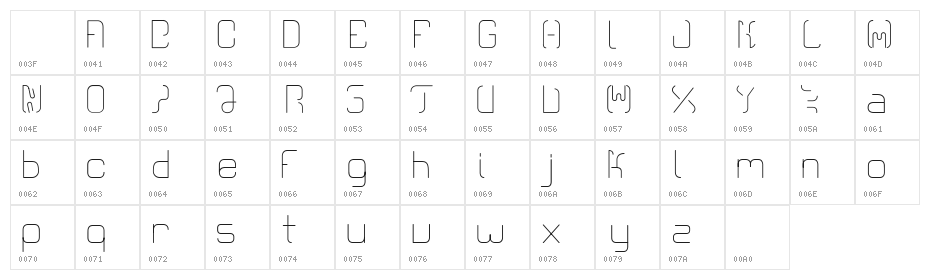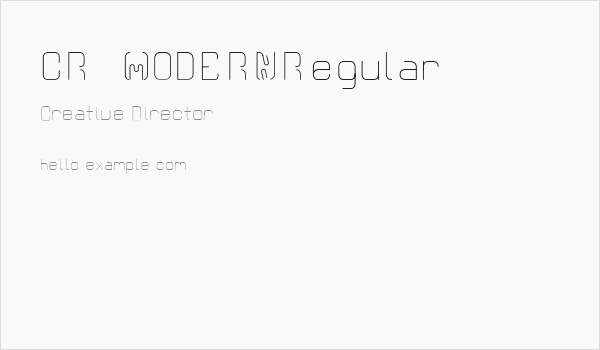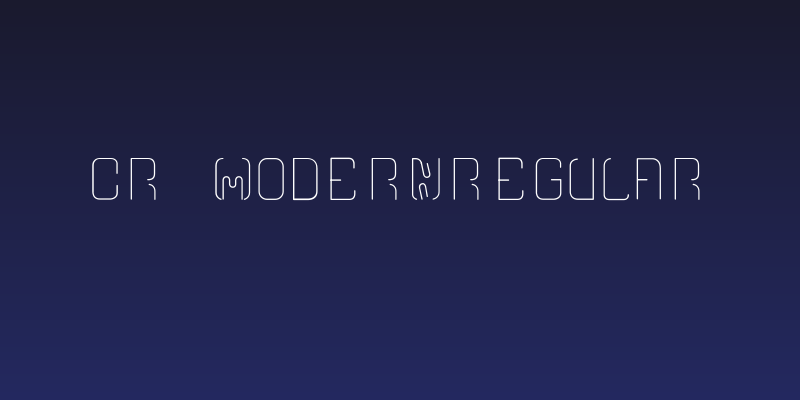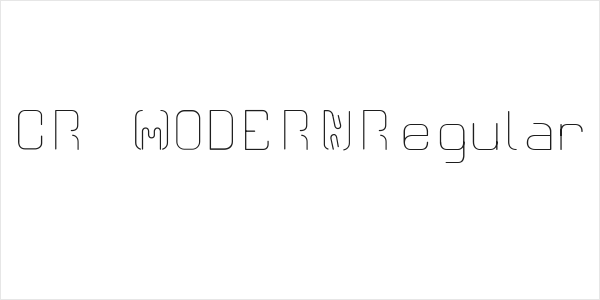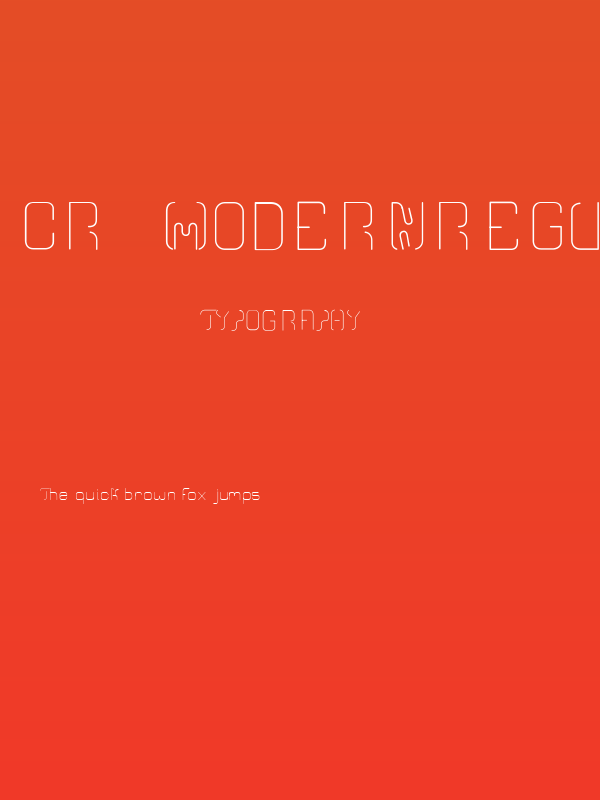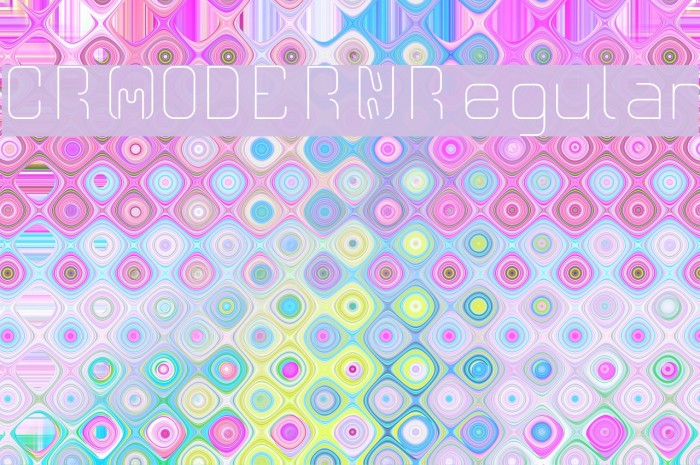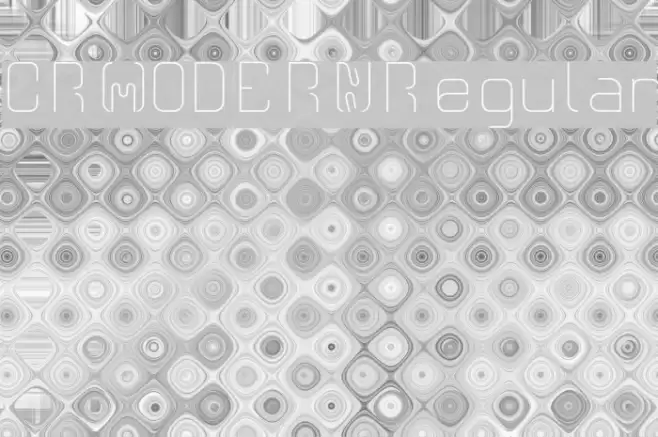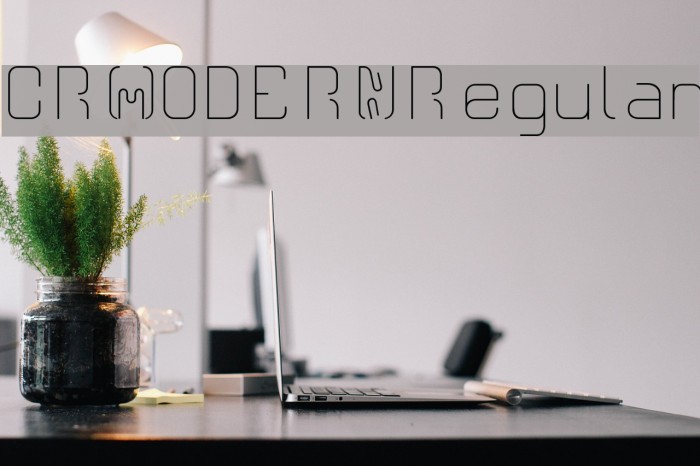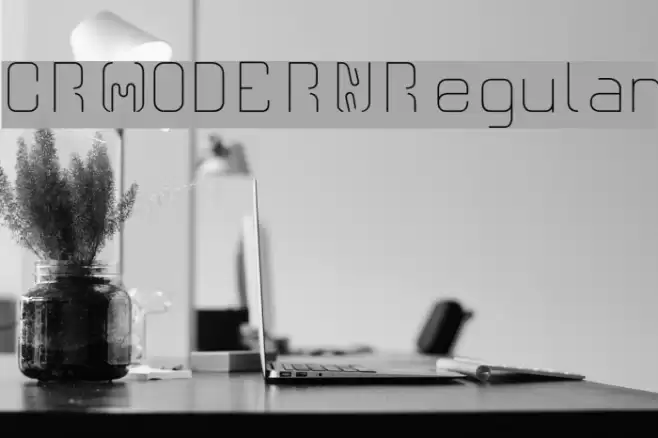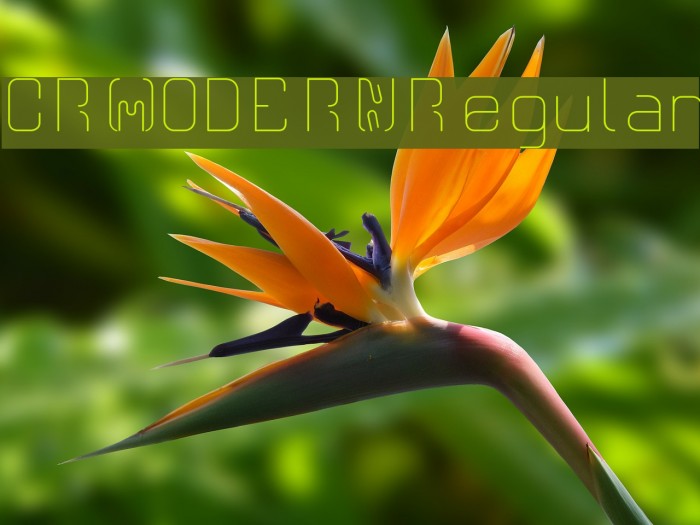
CR21MODERNRegular Font
CR21MODERNRegular Description
This font features a modern, minimalist design with a geometric structure. Each character is composed of thin, continuous lines that form a sleek and futuristic appearance. The uppercase letters have a unique, angular style, while the lowercase letters maintain a consistent, streamlined look. The numerals and special characters follow the same design principles, ensuring uniformity across all glyphs. The font's clean lines and open shapes make it highly legible, even at smaller sizes, while its distinctive style adds a contemporary edge to any design.
| Proposed Projects | Ideal for tech branding, modern web design, futuristic posters, and innovative product packaging. |